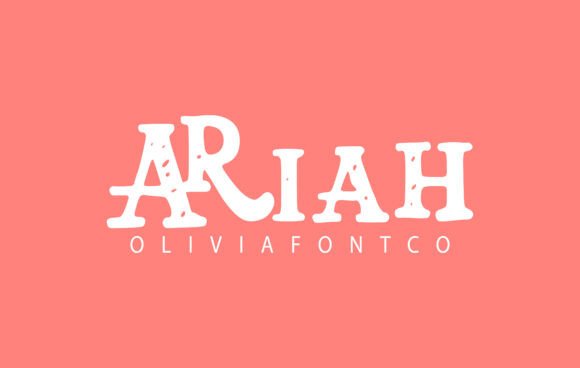
Ariah Font: The Ultimate Handwritten Font for Creative Expression
In the world of typography, fonts play a crucial role in conveying the tone and personality of a brand or creative project. Among the numerous fonts available, Ariah Font stands out as a unique and authentic handwritten font that adds a romantic touch to any design. In this article, we’ll explore the features, benefits, and uses of Ariah Font, and why it’s becoming a favorite among designers and creative enthusiasts.
What is Ariah Font?
Ariah Font is a carefully crafted handwritten font that exudes elegance and sophistication. Designed to be versatile and legible, this font is perfect for a wide range of applications, from magazine headlines and social media graphics to branding, wedding invitations, and more. Its authentic handwritten style gives it a personal and human touch, making it ideal for designs that require a emotional connection with the audience.
Key Features of Ariah Font
- Authentic Handwritten Style: Ariah Font boasts a genuine handwritten look that sets it apart from other fonts.
- Romantic Touch: The font’s elegant and flowing curves add a romantic touch to any design.
- Legibility: Ariah Font is designed to be highly legible, making it perfect for both title and body text.
- Versatility: This font can be used for a wide range of applications, from digital designs to print materials.
Benefits of Using Ariah Font
Using Ariah Font in your designs can have numerous benefits. Here are a few:
- Emotional Connection: The font’s handwritten style creates an emotional connection with the audience, making your design more relatable and engaging.
- Unique Identity: Ariah Font helps you stand out from the crowd with its distinctive and authentic style.
- Time-Saving: With its legibility and versatility, Ariah Font saves you time and effort in designing and re-designing your content.
- Professional Look: The font’s elegant and sophisticated look gives your design a professional and polished finish.
Uses of Ariah Font
Ariah Font is an incredibly versatile font that can be used for various design projects. Here are some ideas:
- Magazine Headlines: Use Ariah Font to create eye-catching headlines and titles for your magazine or publication.
- Social Media Graphics: Add a personal touch to your social media graphics, posts, and stories with Ariah Font.
- Branding: Use Ariah Font as a part of your brand identity to create a unique and memorable visual experience.
- Wedding Invitations: Add a romantic touch to your wedding invitations, cards, and other stationery with Ariah Font.
- Cards and Stationery: Use Ariah Font to create beautiful and elegant cards, letters, and other stationery.
Tips for Using Ariah Font Effectively
To get the most out of Ariah Font, here are some tips:
- Pair with Other Fonts: Experiment with pairing Ariah Font with other fonts to create a unique and visually appealing combination.
- Adjust Font Size and Style: Play with font sizes and styles to create visual hierarchy and add emphasis to your design.
- Use on Different Backgrounds: Try using Ariah Font on different backgrounds and textures to add depth and interest to your design.
- Experiment with Colors: Experiment with different colors and color combinations to find the perfect match for your design.
In conclusion, Ariah Font is a unique and authentic handwritten font that adds a romantic touch to any design. With its legibility, versatility, and emotional connection, this font is perfect for a wide range of applications, from magazine headlines and social media graphics to branding, wedding invitations, and more. By following the tips and guidelines outlined in this article, you can unlock the full potential of Ariah Font and take your creative ideas to the highest level.